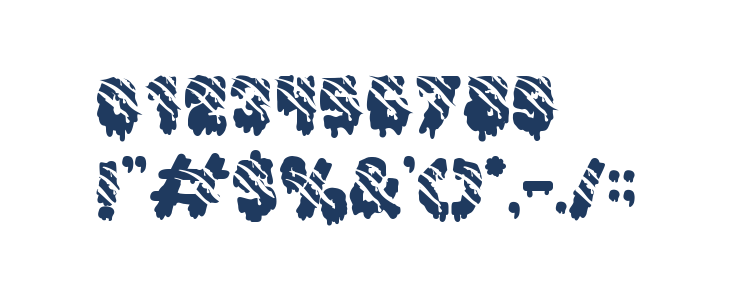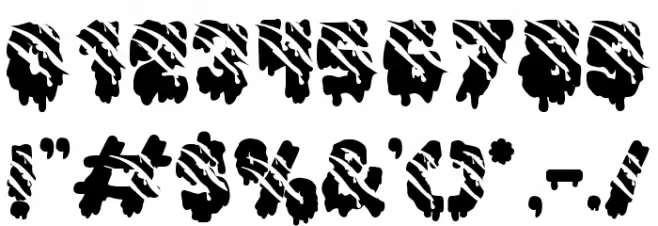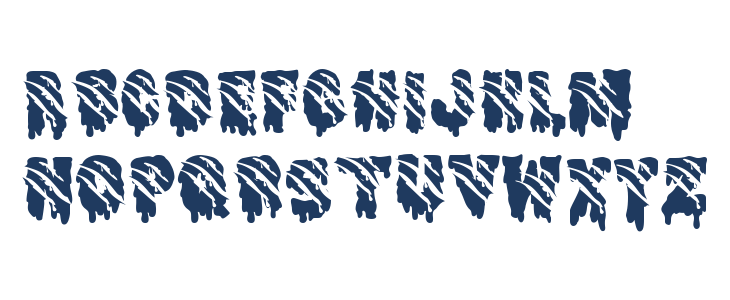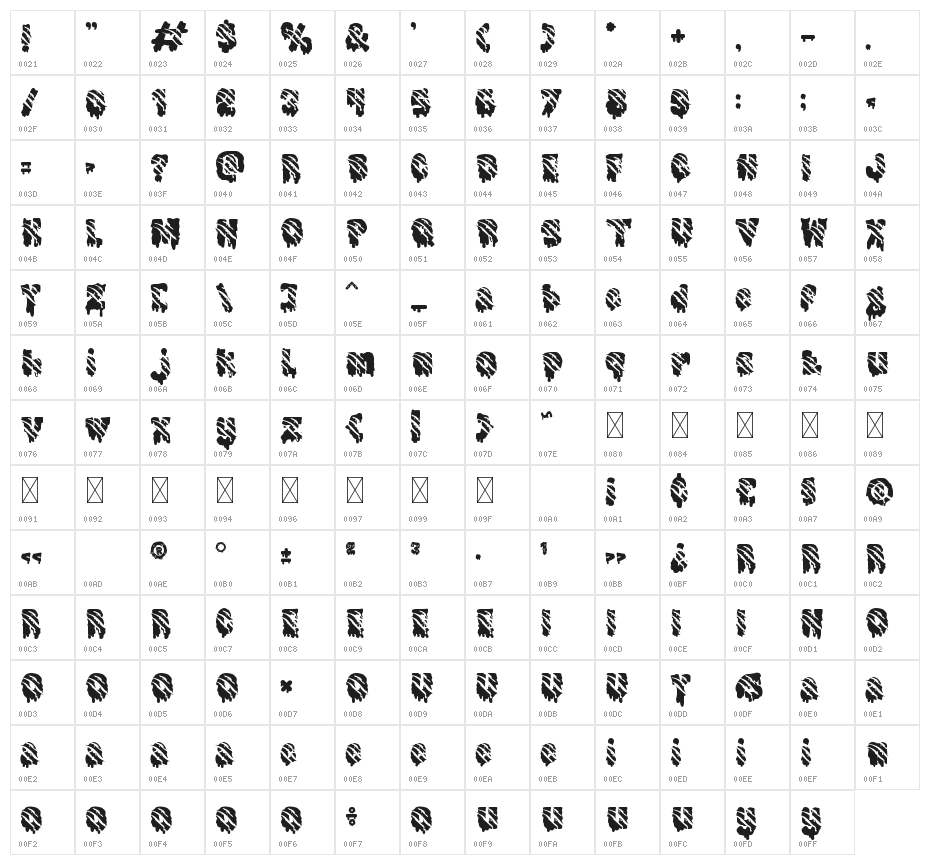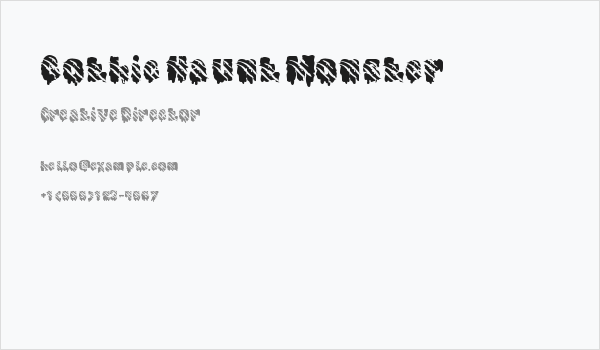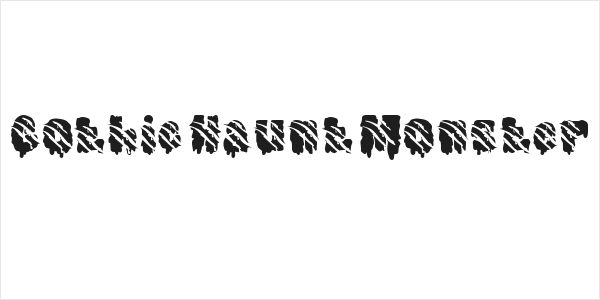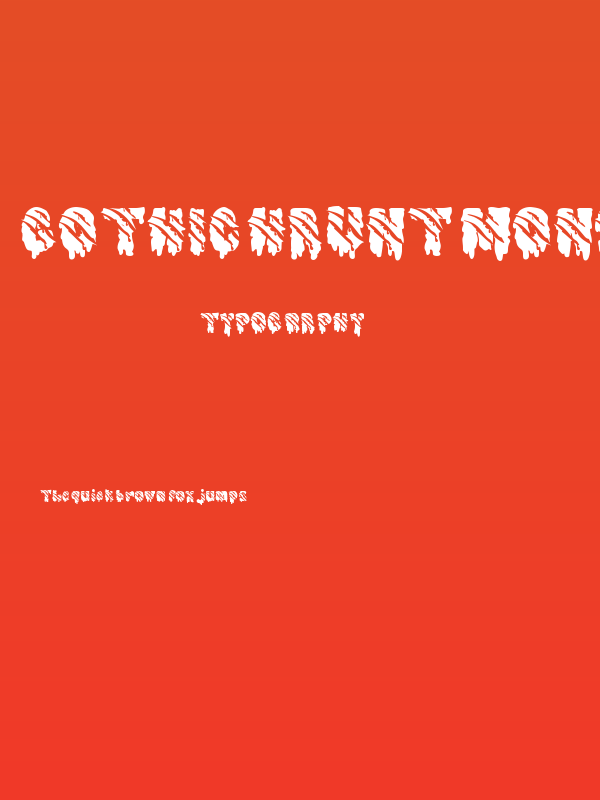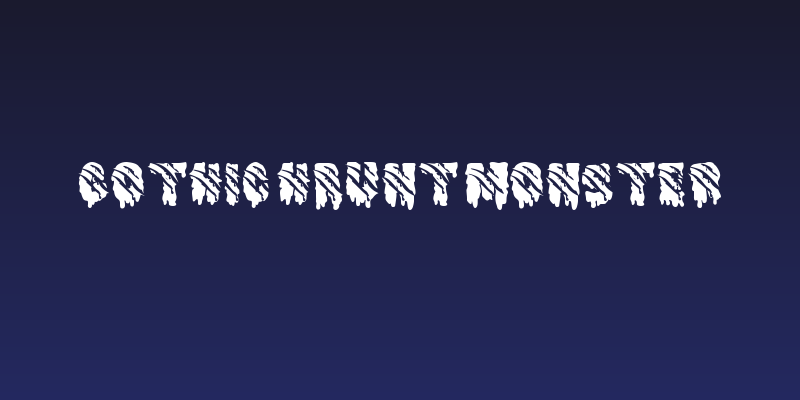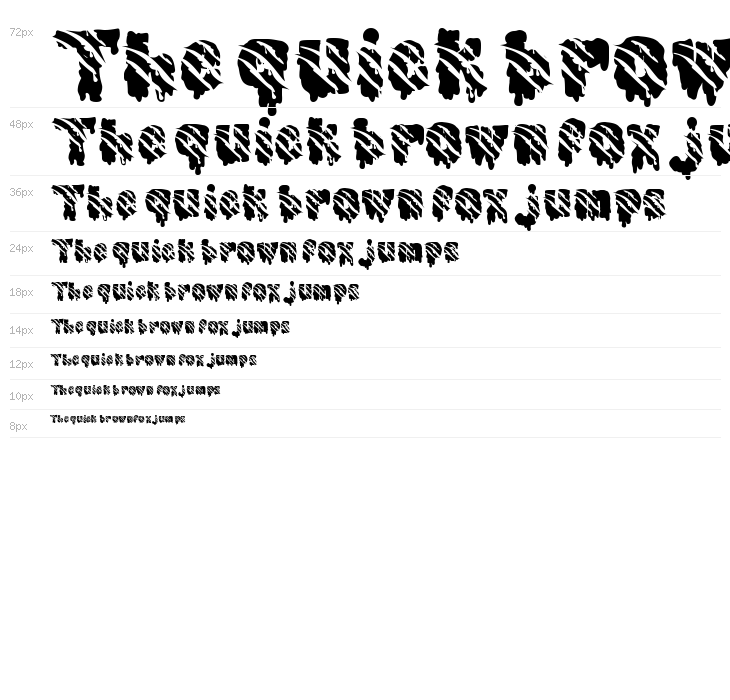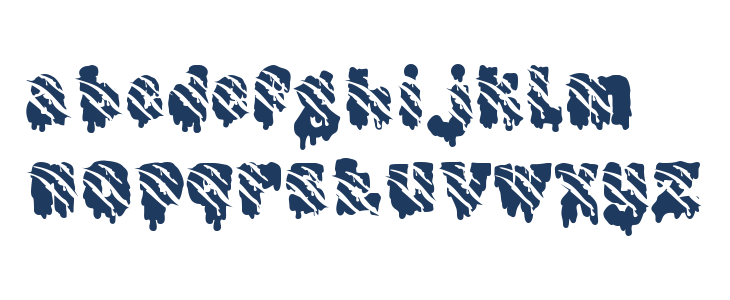
Gothic Haunt Monster Font
Gothic Haunt Monster Description
A bold, decorative display font with a dripping, horror-inspired texture and irregular, jagged edges, featuring high contrast between thick and thin areas and a distressed, monstrous appearance.
| Overall Style | Decorative, Horror, Grunge |
| Use Case | Headlines, Posters, Logos, Event Titles |
| Proposed Projects | Halloween posters, haunted house flyers, horror movie titles, spooky event branding, themed party invitations. |